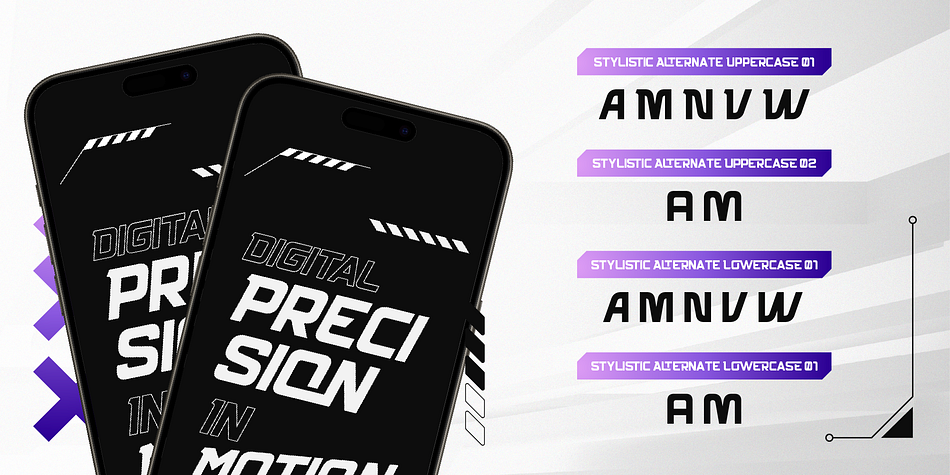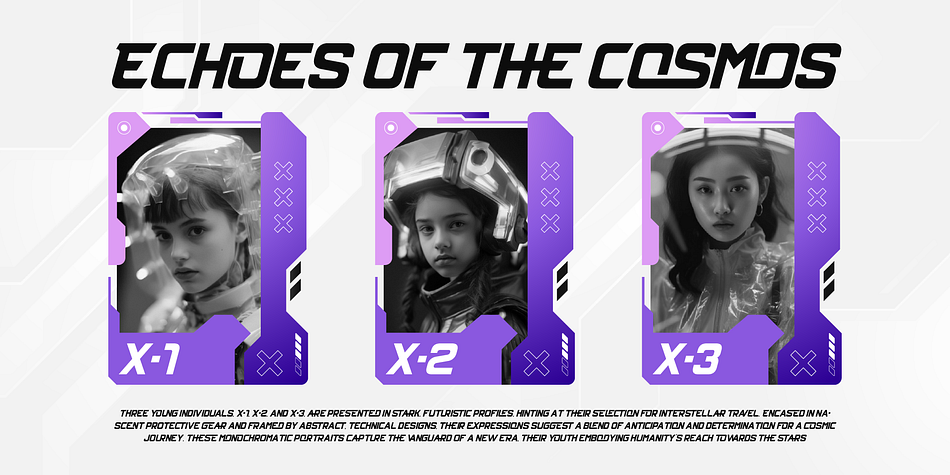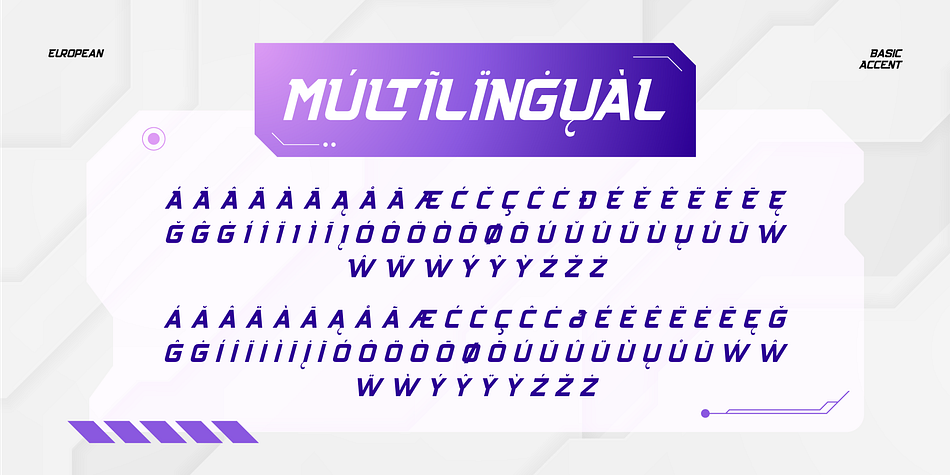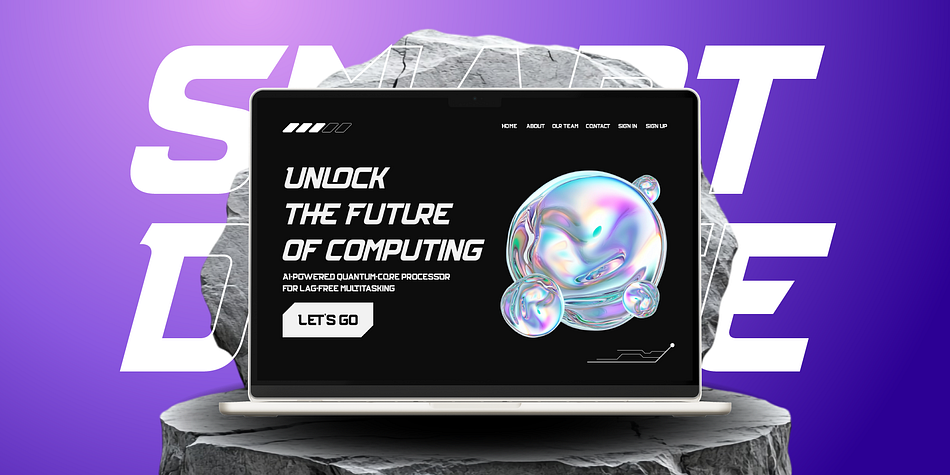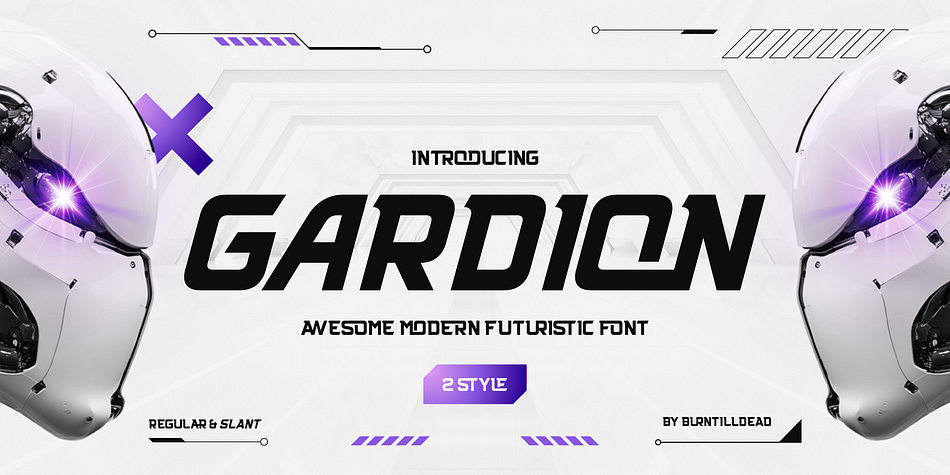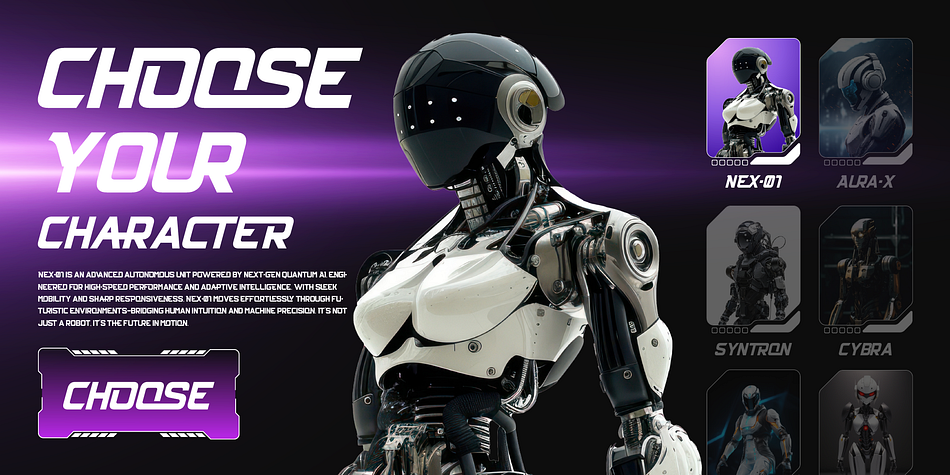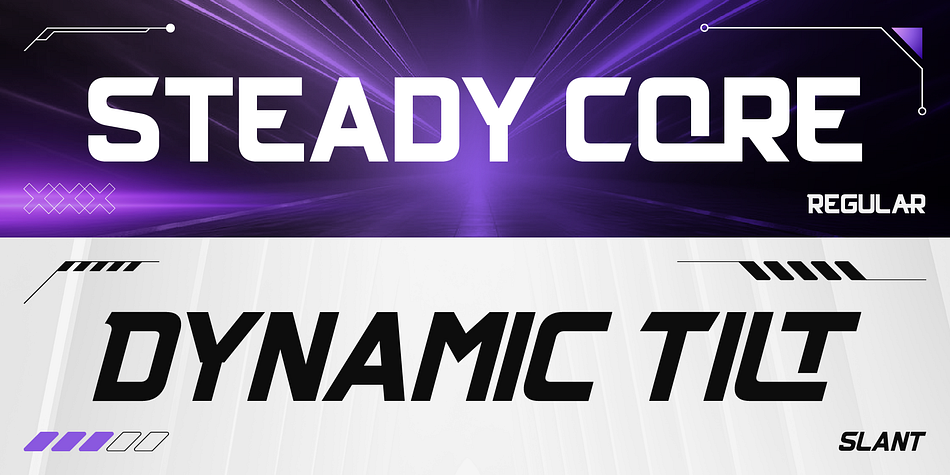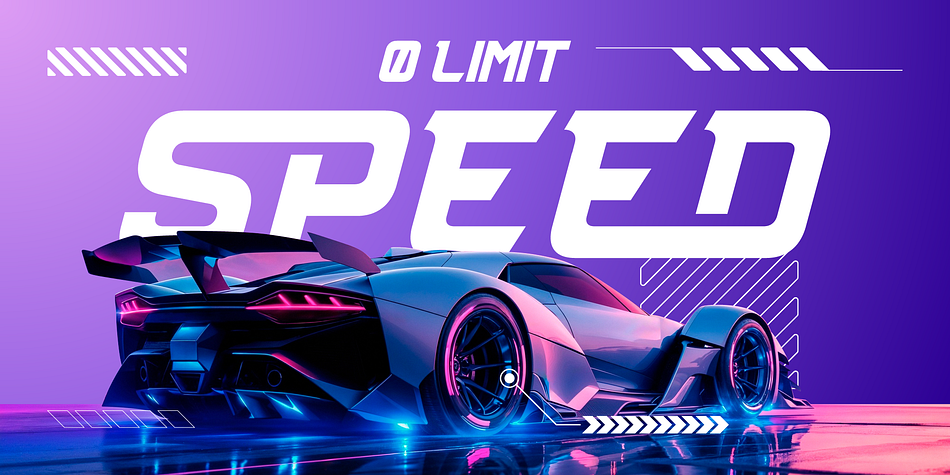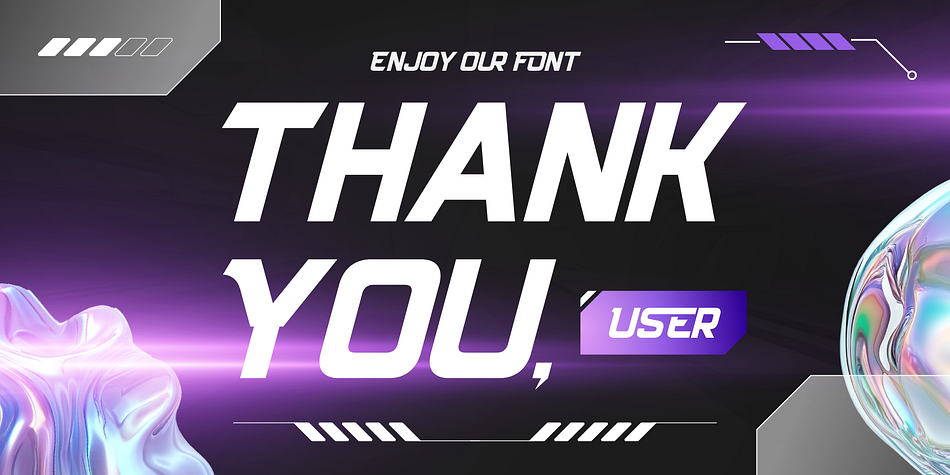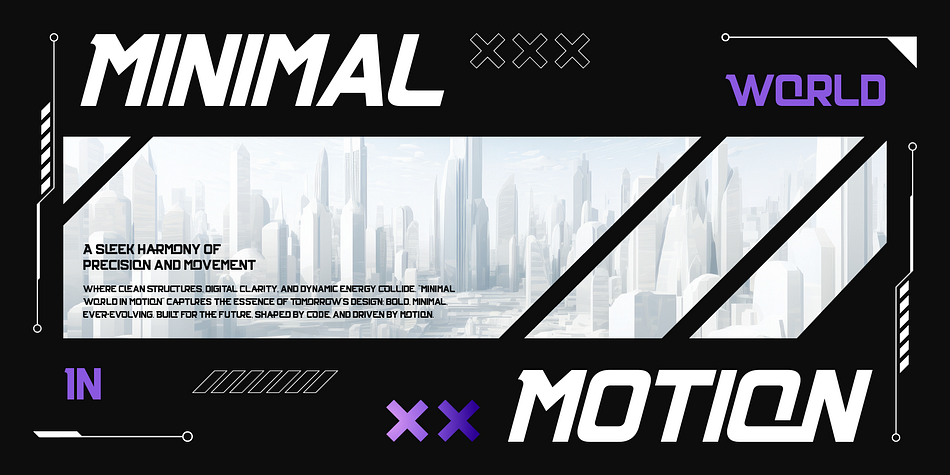
GARDION
Designed by Eric Kurniawan, Gardion is a display sans font family. This typeface has two styles and was published by Burntilldead.
Introducing Gardion, an awesome futuristic font designed to bring a cutting edge vibes. With its sharp geometric shapes and modern aesthethics. Come with 2 styles: Regular and Slant. The regular style look strong and steady, make it look futuristic presence. Slant is dynamic and fast paces, ideal for energetic and action-driven design. Gardion is carefully crafted to eye catching and highly readable, making it a good choice for technology branding, gaming & esport logos, futuristic UI/UX, space theme, sci-fi posters, automotive design, and more.